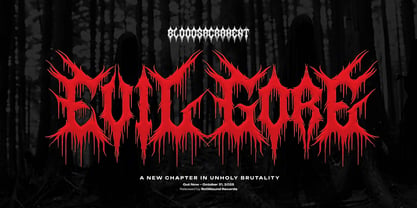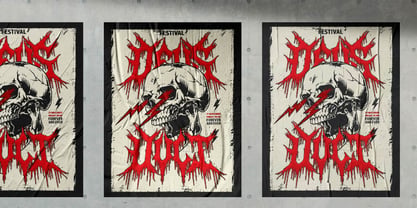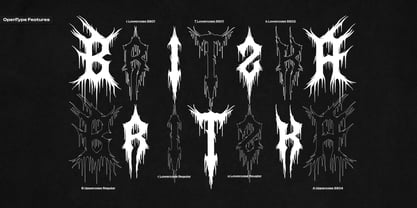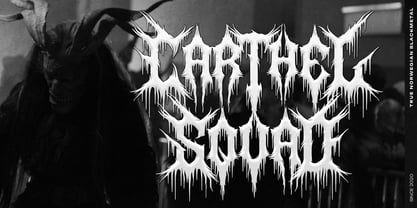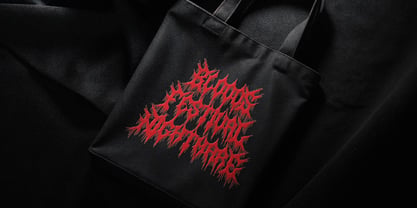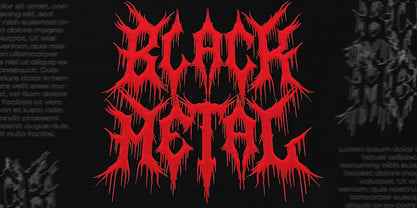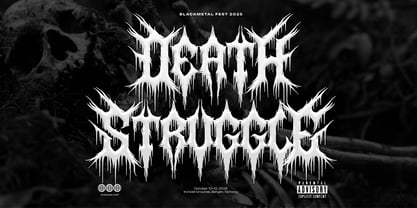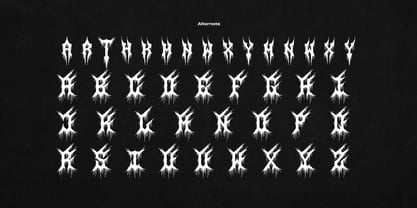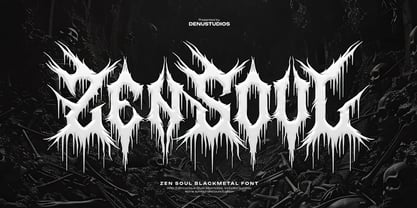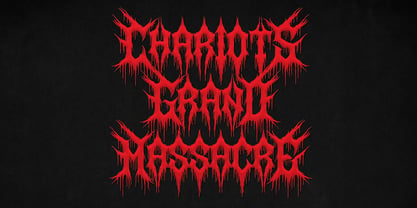
Zen Soul
A família de fontes Zen Soul foi desenhada por Dede Nugraha e publicada pela Denustudio. Zen Soul contém 1 estilos. Saiba mais sobre esta família
Zen Soul | Black Metal Font, from Denustudios, suitable for any projects such as: logos, branding projects, homeware designs, product packaging, mugs, quotes, posters, shopping bags, t-shirts, book covers, name card, invitation cards, greeting cards, label, photography, watermark, special events, and all your other lovely projects that need Black Metal Font a taste.
• Alternate and Ligature